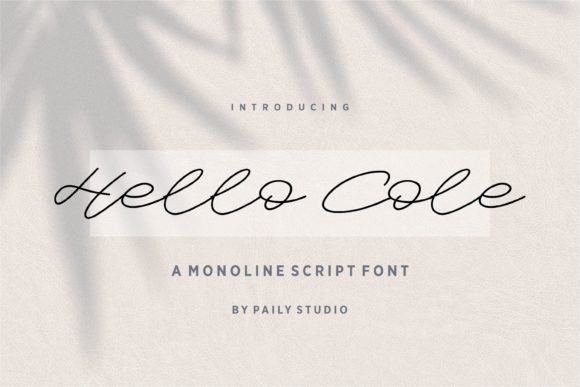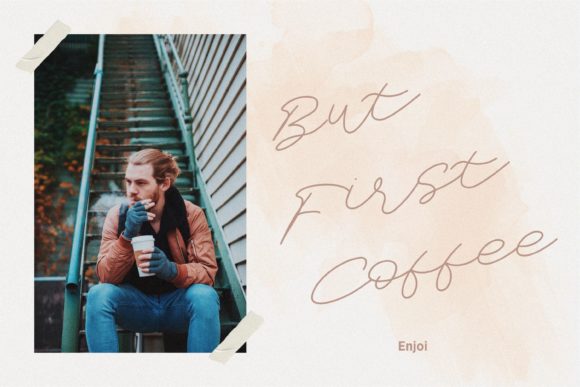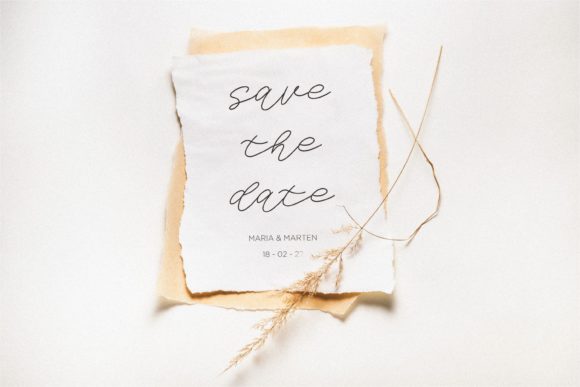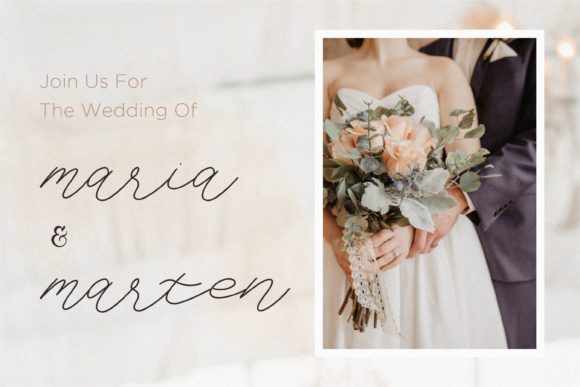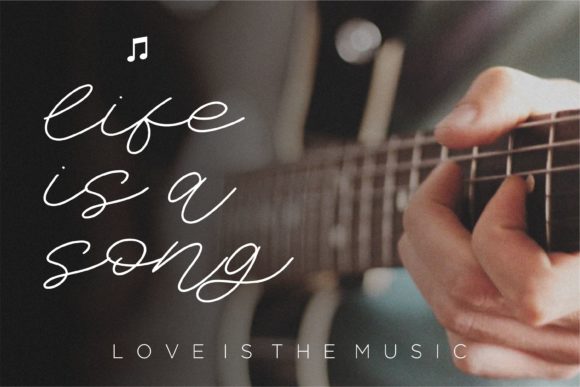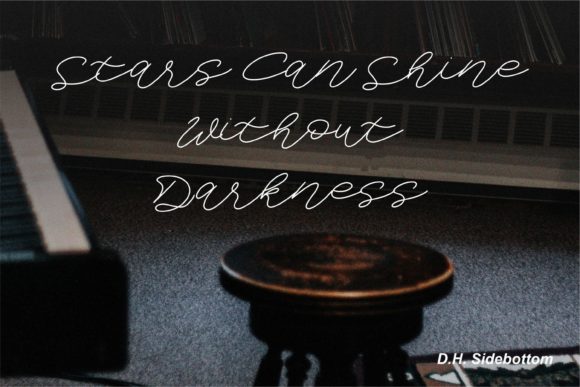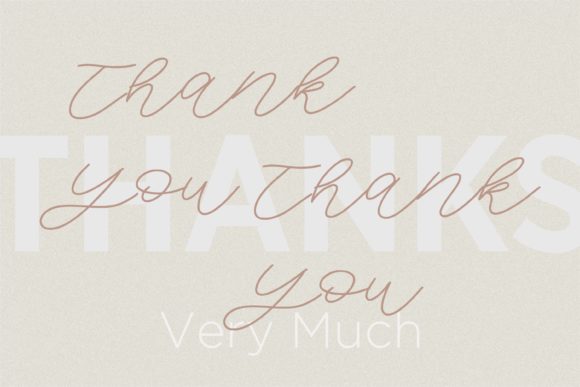
Hello Cole Font
About Hello Cole Font
Hello Cole is a thin and cursive script font. It looks beautiful on a variety of designs requiring a personalized style, such as wedding invitations, thank you cards, weddings, greeting cards, logos and so on.